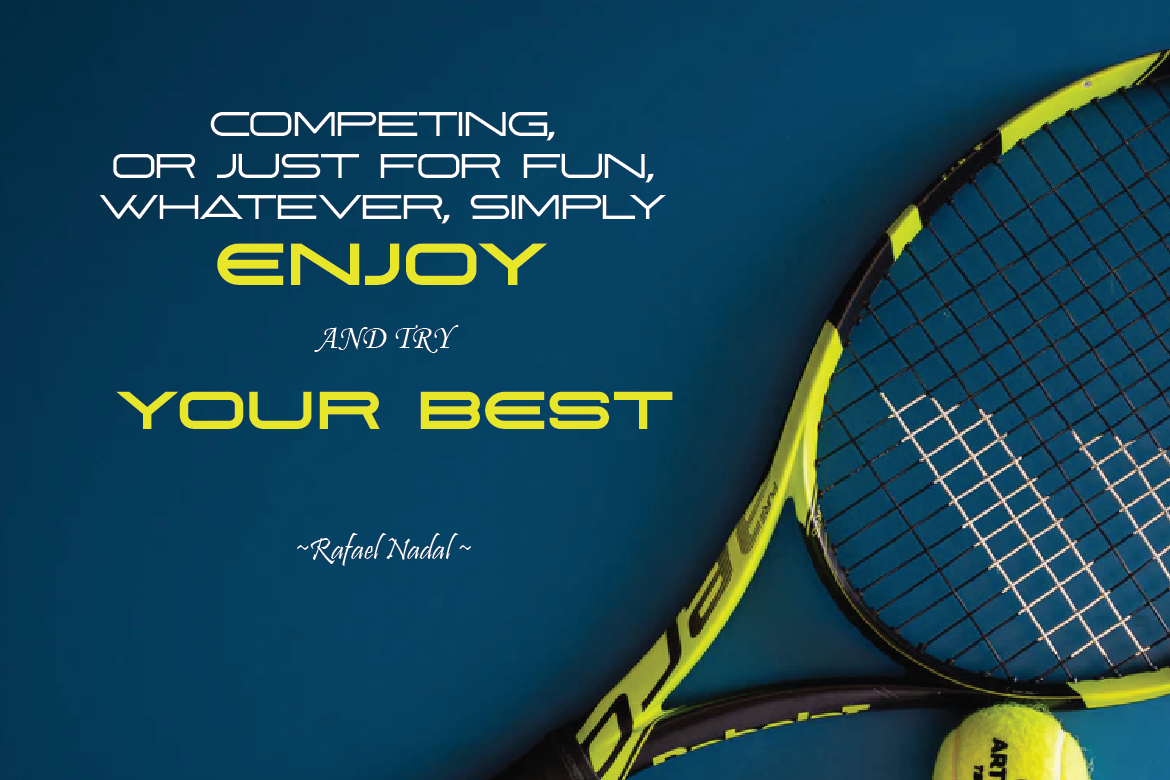
ISAKUNIKI Font
ISAKUNIKI Display Font
This is a handwritten san serif font with a relaxing, peaceful, and attractive background because it is pleasing to the eye and feels natural and blends with nature.
This font is perfect for packaging, special occasion events, branding, banners, posters, food and beverage, quotes, clothing, logos and more.